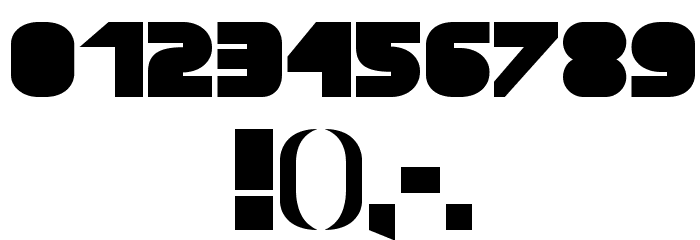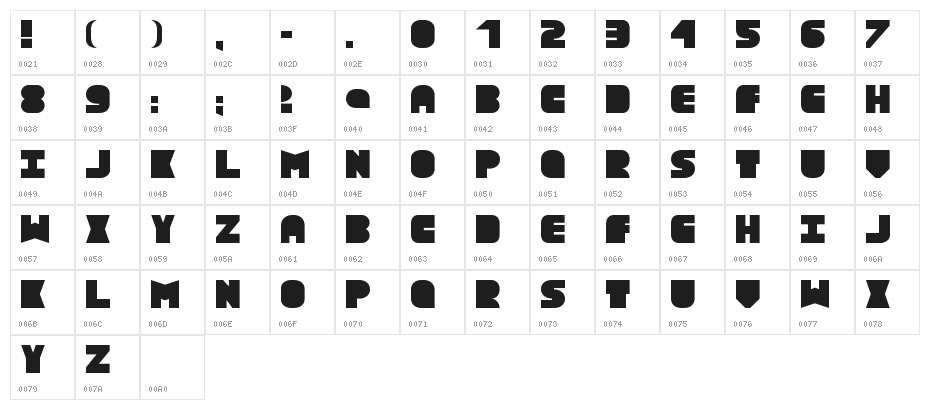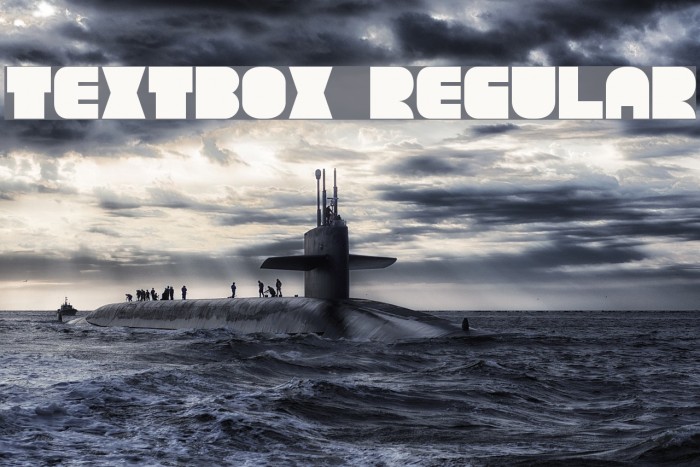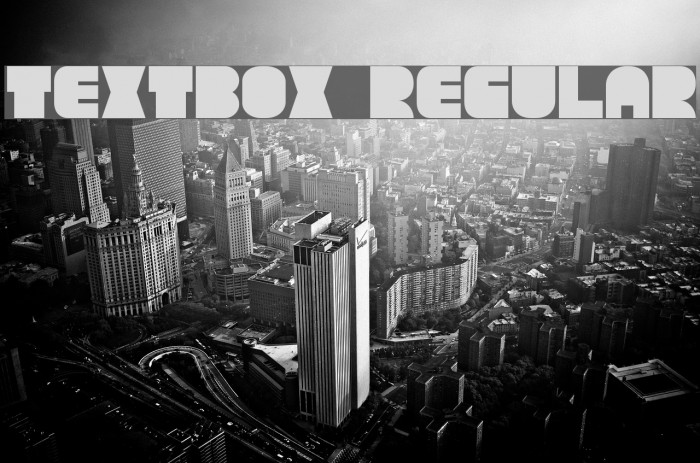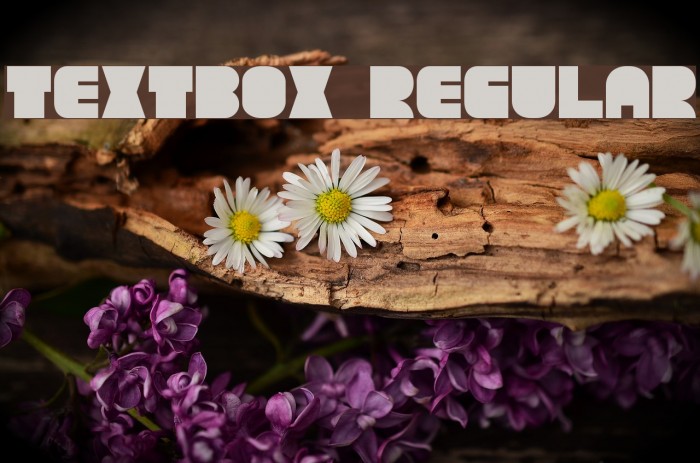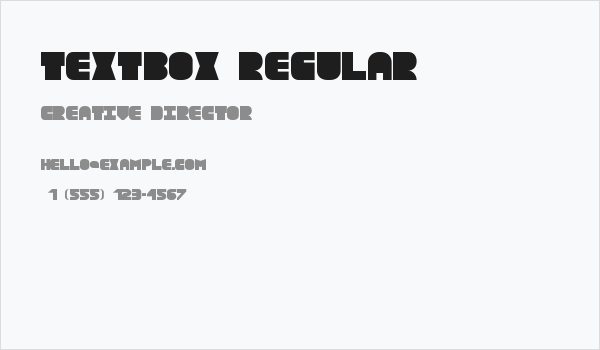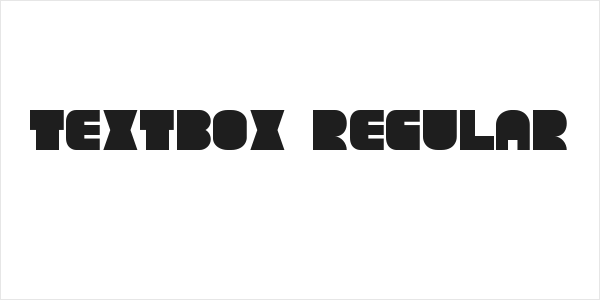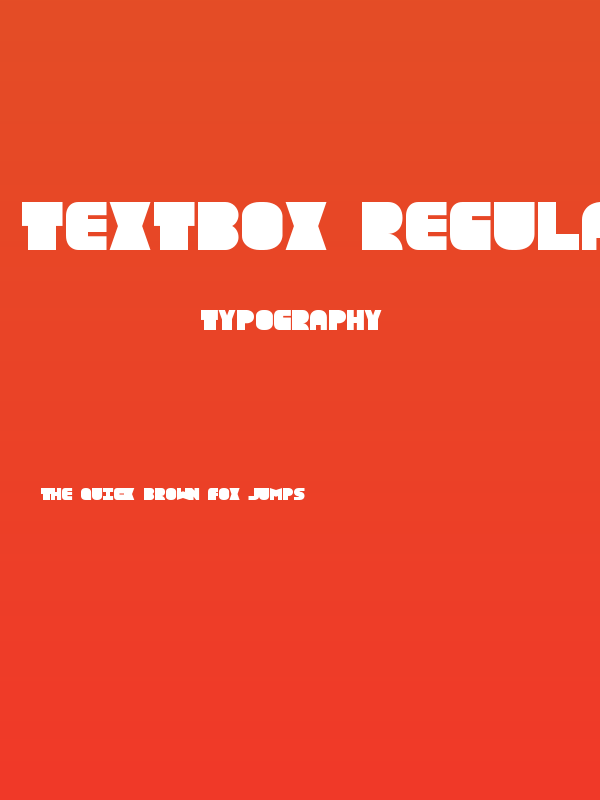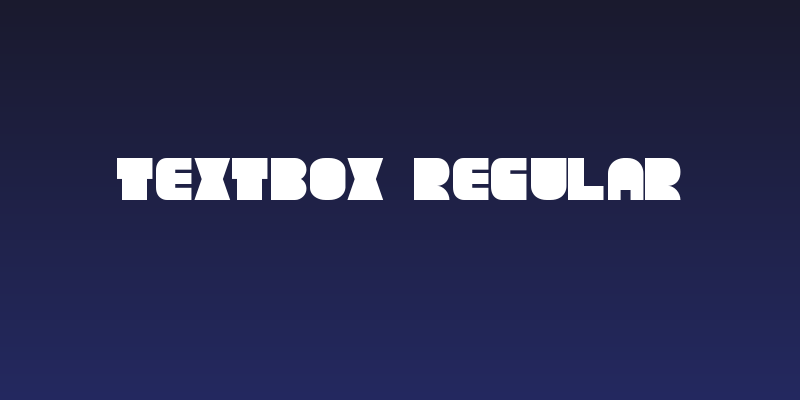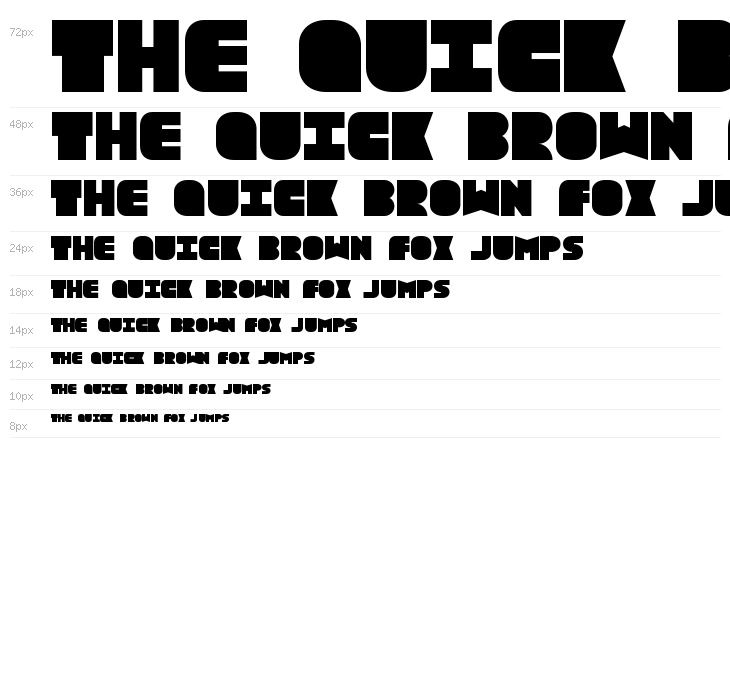
TextBox Regular Font
TextBox Regular Description
This font features a bold, geometric design with strong, angular shapes and a distinct block-like appearance. The characters are uniformly wide, creating a cohesive and impactful visual style. The uppercase and lowercase letters maintain a consistent weight, contributing to the font's robust and solid feel. The numerals and special characters follow the same design principles, ensuring uniformity across all glyphs. The font's boldness and geometric nature make it highly suitable for attention-grabbing designs.
| Proposed Projects | Ideal for posters, headlines, branding, and any project requiring a strong visual impact. |